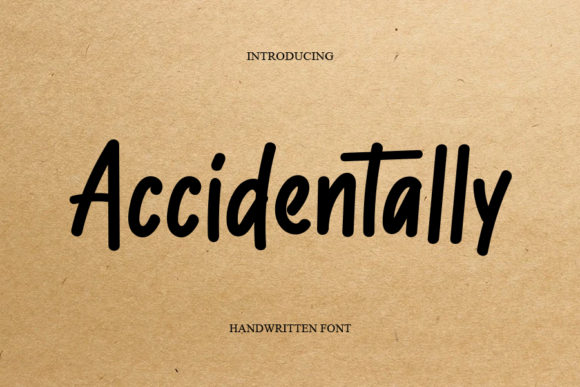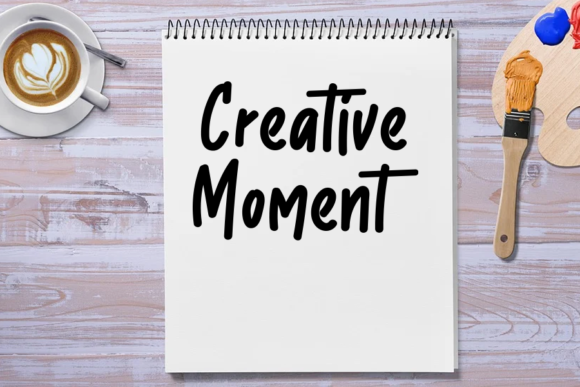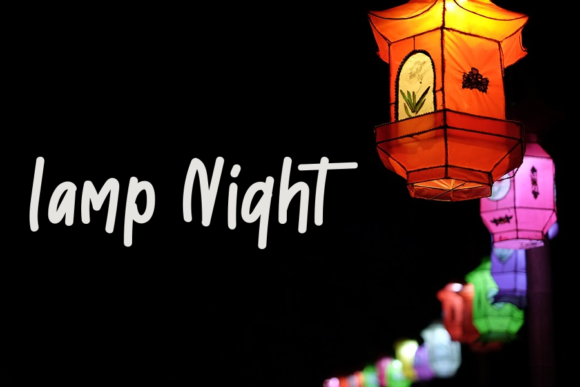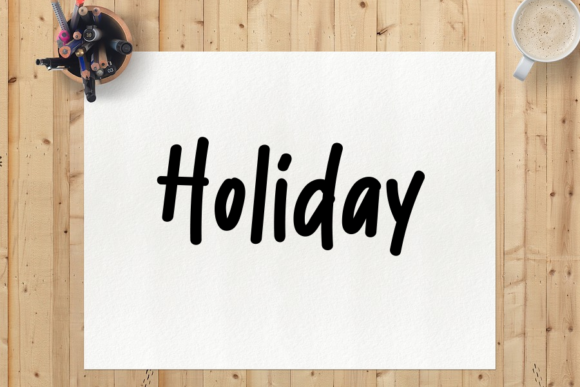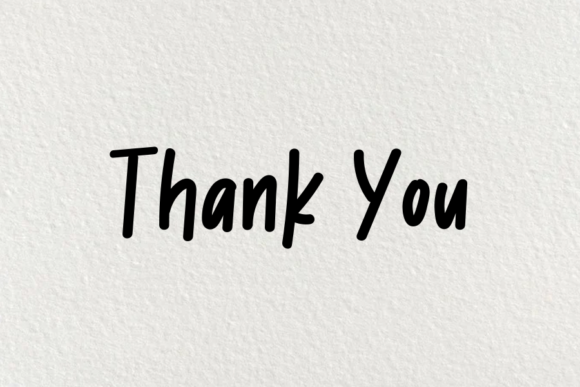
Accidentally Font
About Accidentally Font
Accidentally is a sweet and friendly handwritten font. Its natural and unique style makes it incredibly fitting to a large pool of designs. The only limit is your imagination!